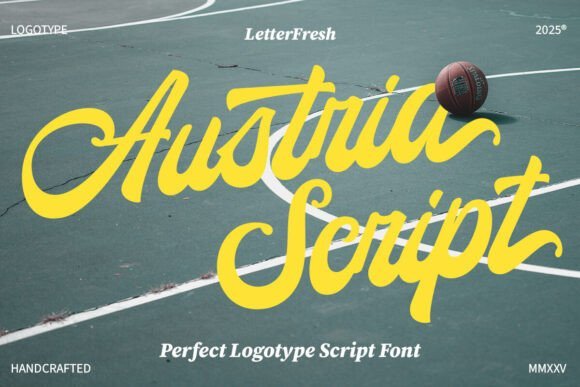
The Creative Power of Handwritten Text
Have you ever found yourself scribbling down a quote or a phrase in a notebook, only to realize that the imperfections of your handwriting add a unique touch to the words? It’s a moment of creative freedom that can be both therapeutic and inspiring.
Designers and creatives have long sought to capture the essence of handwritten text in their work, but it often requires hours of practice and patience. That’s where the Austria Script Font comes in – a game-changing solution that allows you to create instantly authentic handwritten letters with ease. With its unique blend of modern vintage and retro styles, combined with old American traditional flair, this font is a valuable addition to any designer’s toolkit.
Austria Script Font Key Features
- Unique Characteristics: Austria Script Font features a beautiful, elegant script design with a touch of modernity, making it perfect for wedding invitations, branding, and other creative projects.
Austria Script Font Review
I recently had the chance to work with the Austria Script Font, and I must say, it’s a beautiful addition to any design project. Here are my thoughts on what works well and what doesn’t.
Legibility: The font is highly legible, even at smaller font sizes, making it perfect for body text and long passages of text.
Expressiveness: The script font is highly expressive and conveys a sense of elegance and sophistication, making it ideal for branding and advertising projects.
Customization: The font comes with a range of customization options, including font sizes, colors, and effects, allowing designers to tailor the font to their specific needs.
Overall, I’m impressed with the Austria Script Font. Its beautiful design and high level of customization make it a great choice for designers. However, the download and installation issues, as well as compatibility issues, need to be addressed for a seamless user experience.
Tips for Getting the Most Out of Austria Script Font
Use Austria Script Font for titles, headings, and other decorative text elements.
Pair Austria Script Font with a clean, sans-serif font for body text.
Austria Script Font is ideal for:
Stationery and letterhead
Magazine and book titles
Alternatives to Austria Script Font for Designers
The Austria Script Font is a beautiful script font known for its elegant and sophisticated look. However, designers often look for alternative fonts that can provide a similar feel while offering unique characteristics. Here are a few alternatives to the Austria Script Font:
Carolyna Pro is a modern script font designed by Héctor Gatti. It is perfect for designers who want a font that exudes sophistication and elegance, similar to the Austria Script Font. However, Carolyna Pro has a more contemporary feel and is ideal for use in logos, branding, and packaging design.
Comparison to Austria Script Font: While both fonts are elegant and sophisticated, Carolyna Pro has a more modern and edgy feel compared to the classic and traditional look of the Austria Script Font.
Great Vibes is a beautiful script font designed by hand by Laurence Penney. It is perfect for designers who want a font that is both elegant and playful. Great Vibes is ideal for use in wedding invitations, greeting cards, and other creative projects.